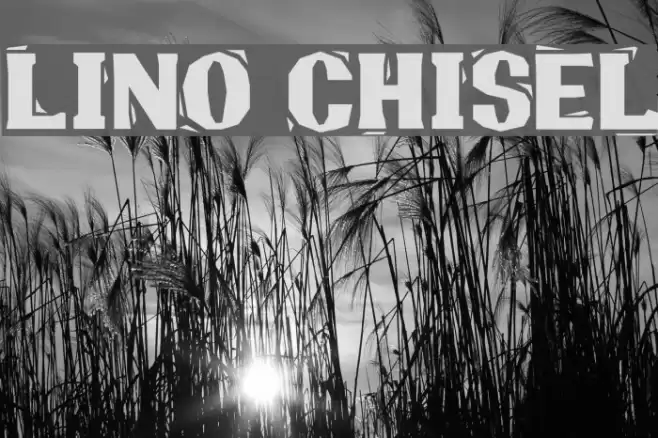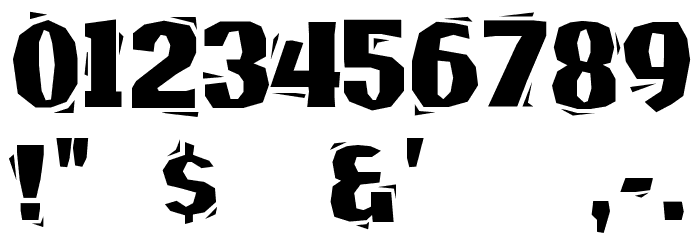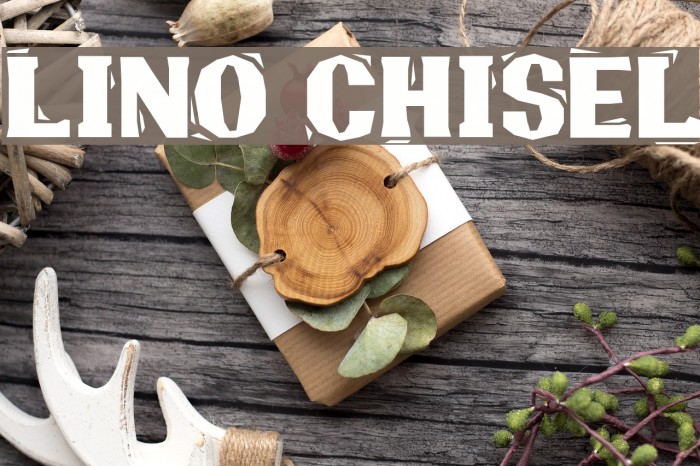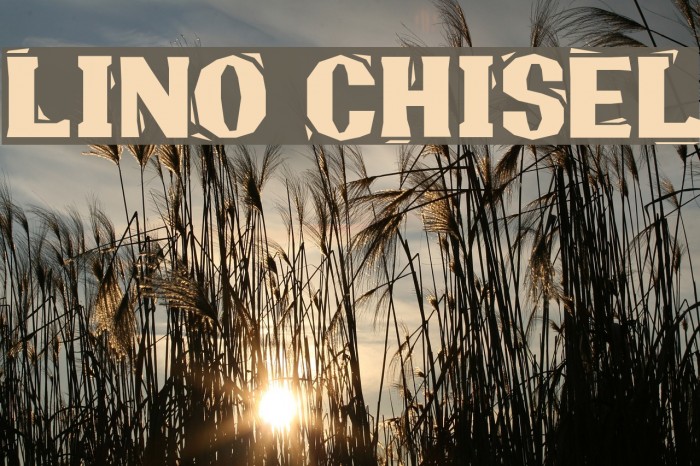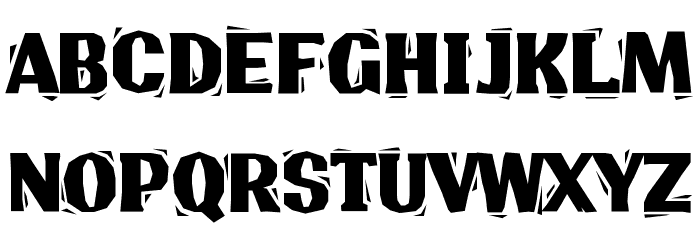
Lino Chisel Font
Lino Chisel Description
This font features a bold and rugged design, reminiscent of chiseled stone or woodcut prints. The characters have a distinctive, rough-edged appearance, with irregular cuts and angles that give it a handcrafted, artisanal feel. The uppercase letters are particularly striking, with strong geometric forms that convey a sense of strength and durability. The numbers and special characters maintain this aesthetic, ensuring consistency across all glyphs. This font is ideal for projects that require a bold, impactful statement, such as posters, headlines, or branding materials that aim to convey a sense of tradition and craftsmanship.
A bold, rugged font with a chiseled, handcrafted appearance from Distorted Eroded fonts.
- Proposed Projects: Ideal for posters, headlines, branding, and any design needing a bold, artisanal touch.